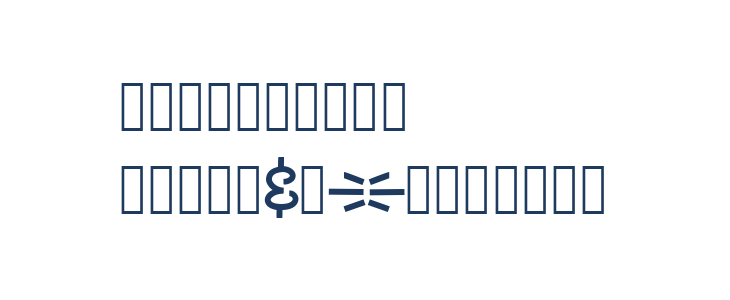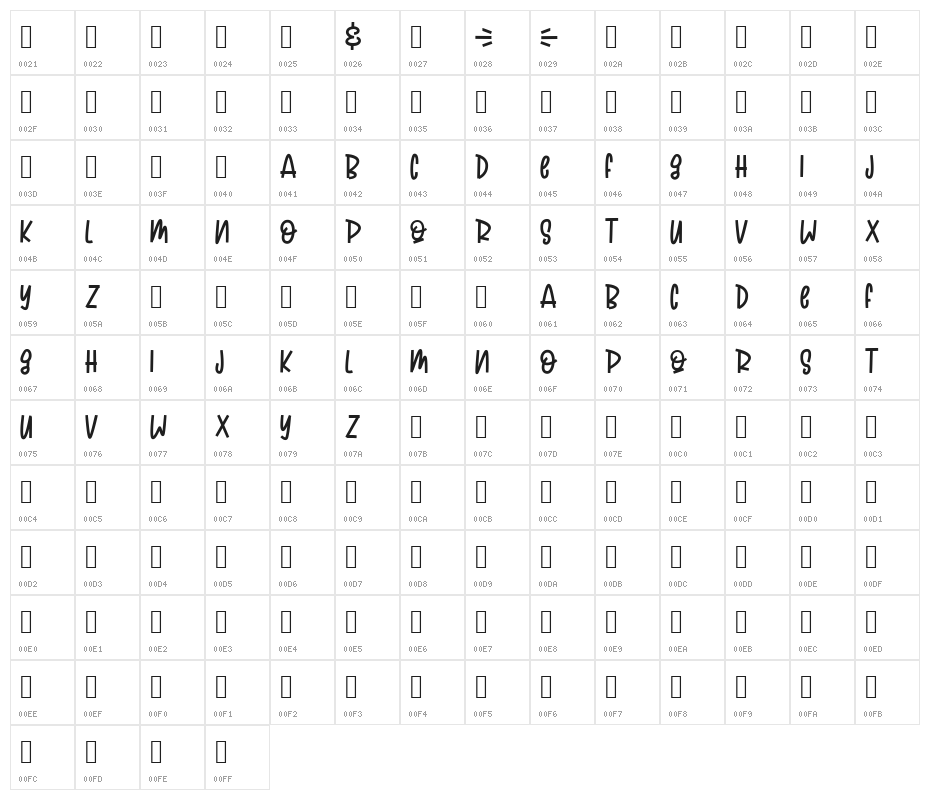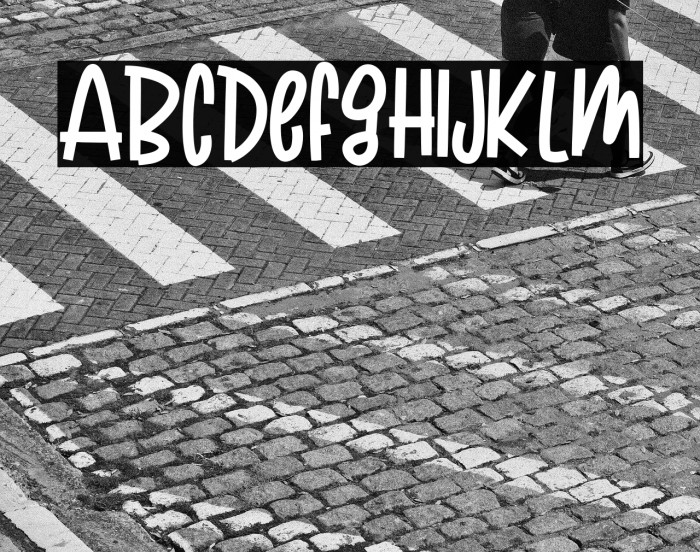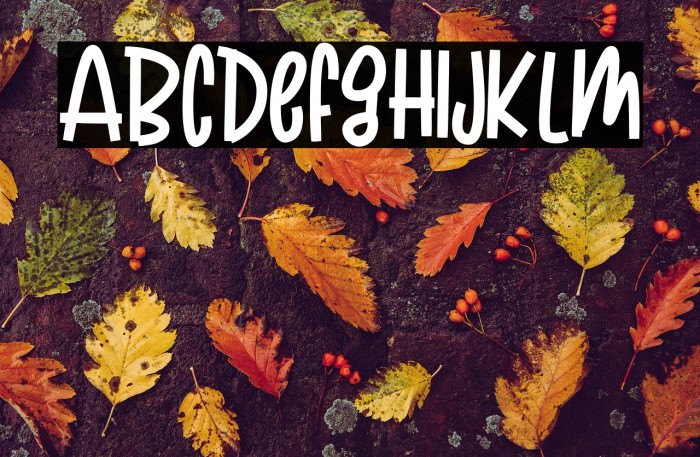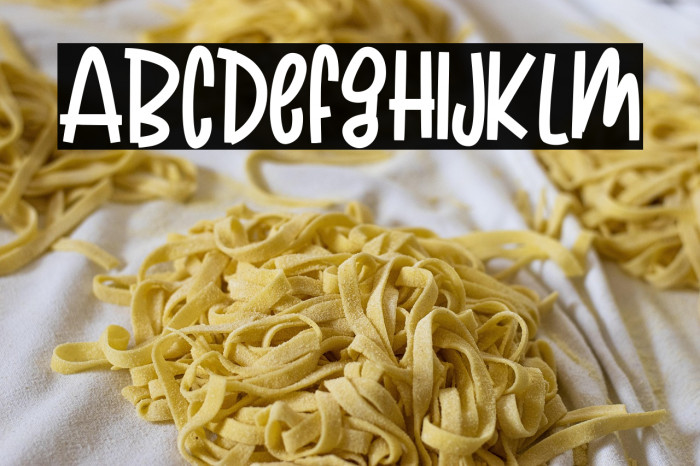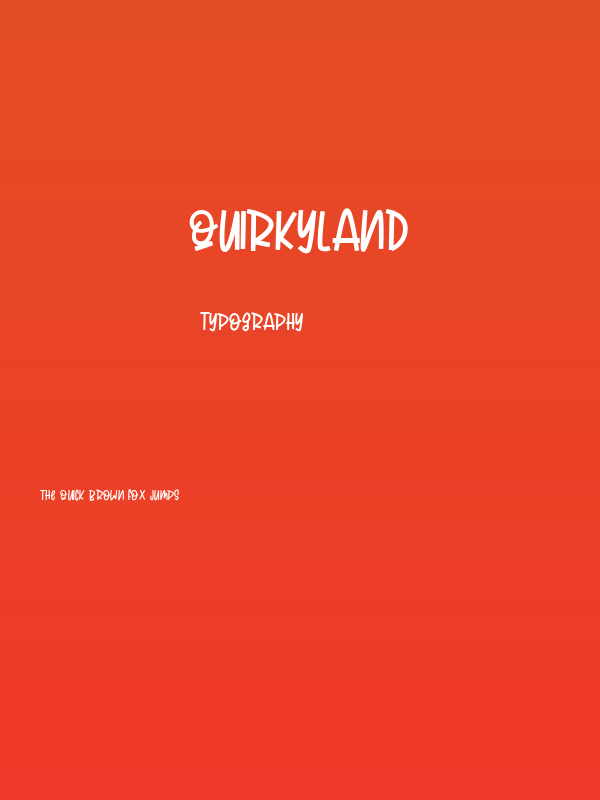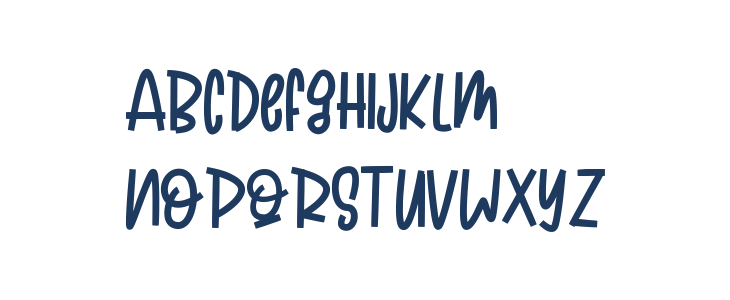
QUIRKYLAND Font
QUIRKYLAND Description
This font features a playful and whimsical style, characterized by its irregular and quirky letterforms. The uppercase letters have a bold and dynamic appearance, with varying stroke widths that add a sense of movement and energy. The lowercase letters maintain this playful aesthetic, with some characters having exaggerated curves and angles. The font includes a full set of uppercase and lowercase letters, numbers, and a selection of special characters. Its unique style makes it stand out, perfect for projects that require a fun and informal touch.